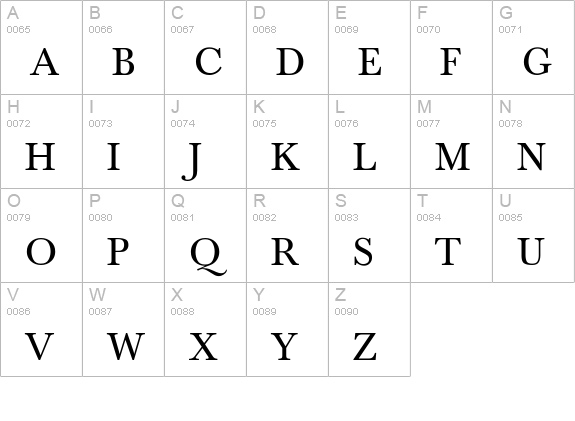
Bartholomew-Normal is the standard, neutral variant in the Bartholomew typeface family \xE2\x80\x94 well suited to general body text, paragraphs, and standard typographic work.
Bartholomew-Normal font is a versatile and stylish typeface that exudes elegance and sophistication. With its clean lines and classic design, this font is perfect for a wide range of projects, from branding to editorial design. The balanced letterforms and subtle curves give Bartholomew-Normal a timeless appeal that is sure to elevate any design it is used in. What sets Bartholomew-Normal apart is that it is not only visually appealing but also completely free to download. That's right - you can access this high-quality font at no cost on FontsMarket.com. Whether you're a designer looking to add a touch of class to your work or a business owner wanting to enhance your branding, Bartholomew-Normal is the perfect choice. Download it today and see for yourself the impact this elegant font can have on your projects.